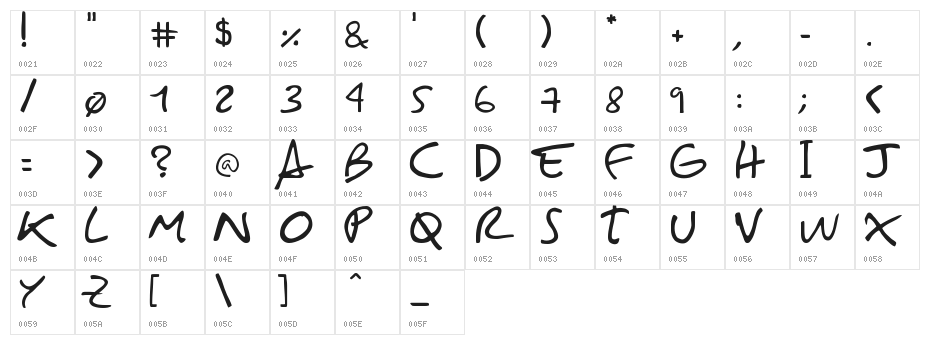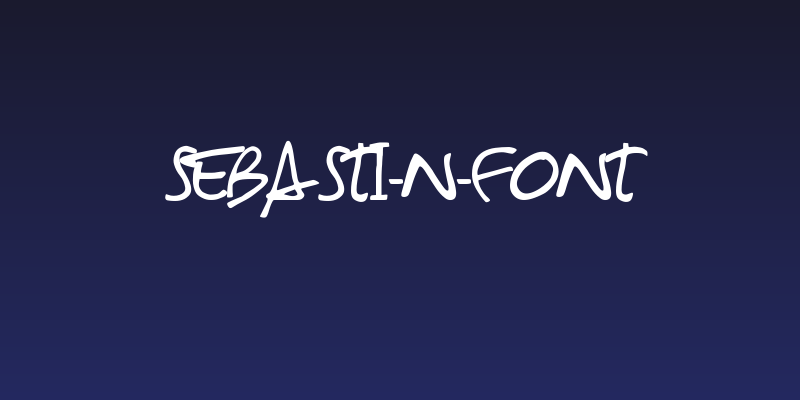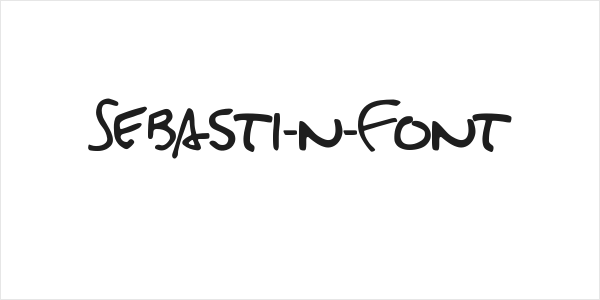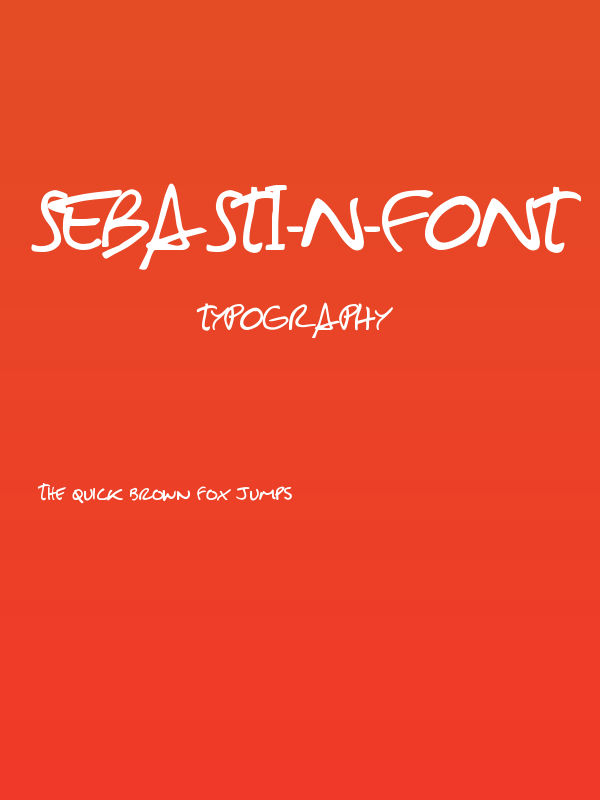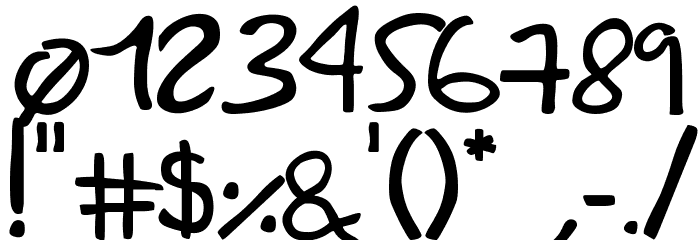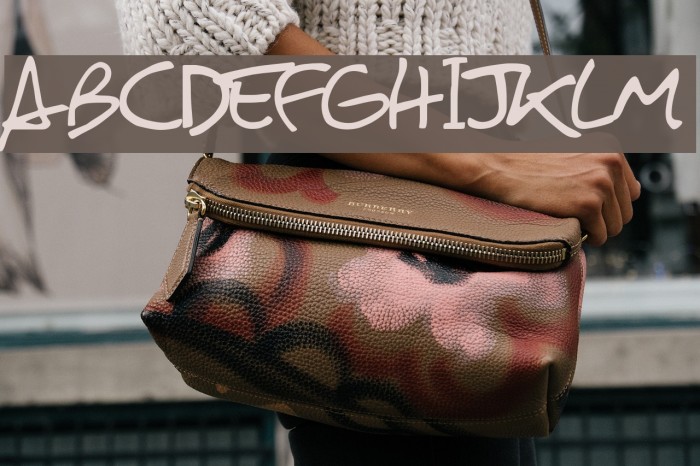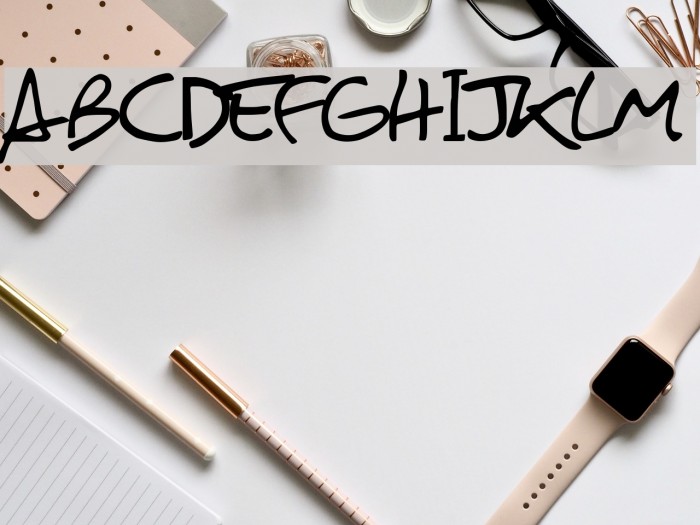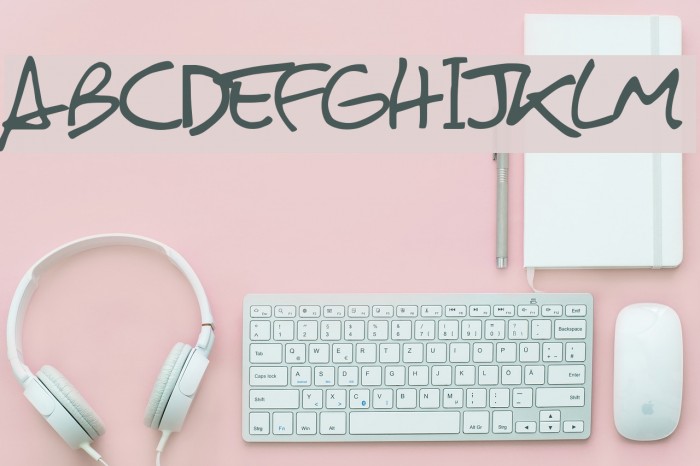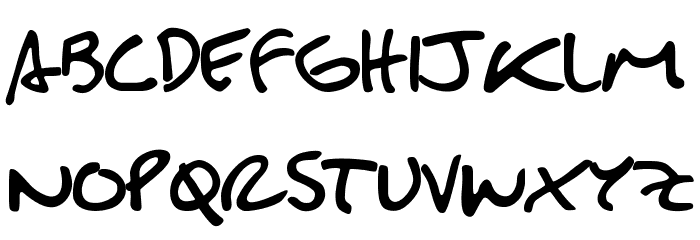
Sebasti-n-Font Font
Sebasti-n-Font Description
This font features a bold and expressive handwritten style, characterized by its dynamic and fluid strokes. The letters are slightly slanted, giving a sense of motion and energy. The uppercase and lowercase letters maintain a consistent style, with rounded edges and a playful appearance. The numbers and special characters follow the same design principles, ensuring a cohesive look across all elements. This font's informal and lively nature makes it suitable for projects that require a personal touch or a creative flair.